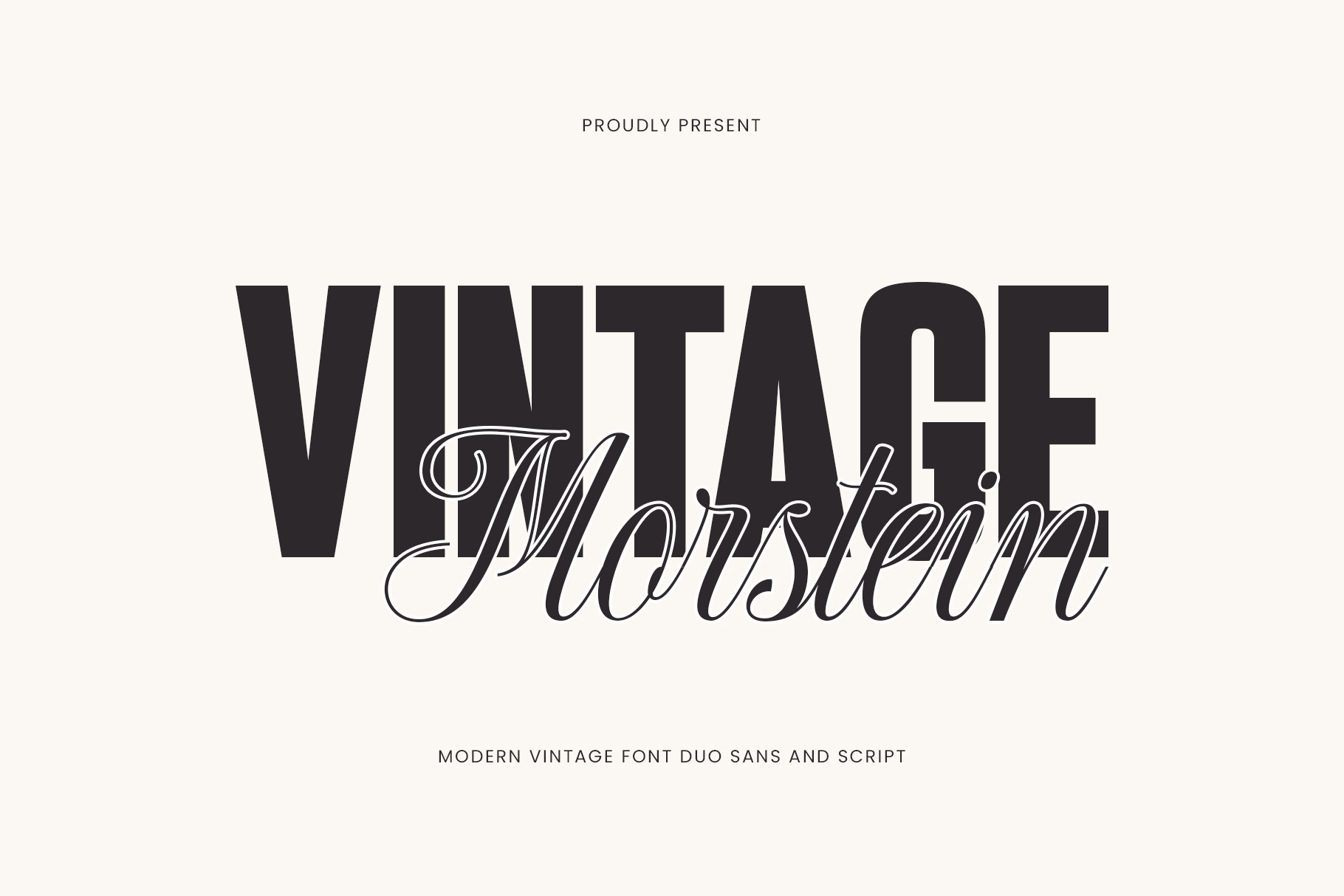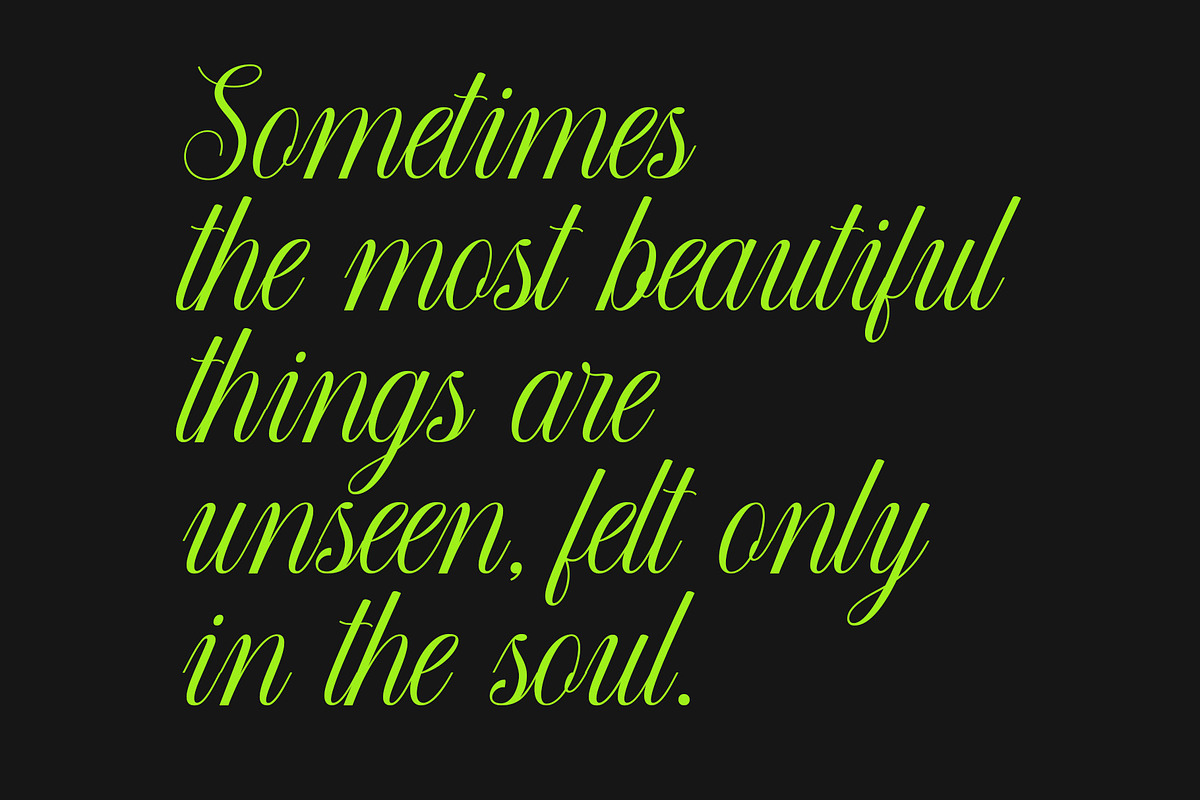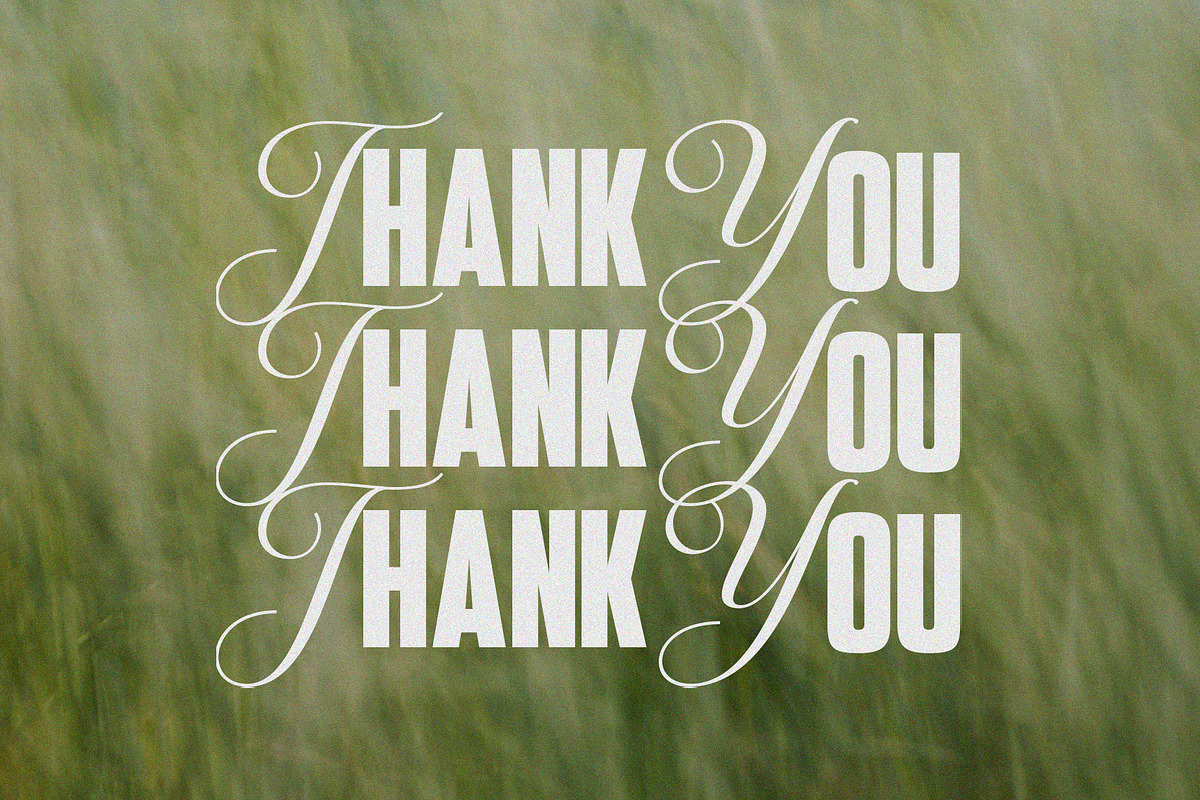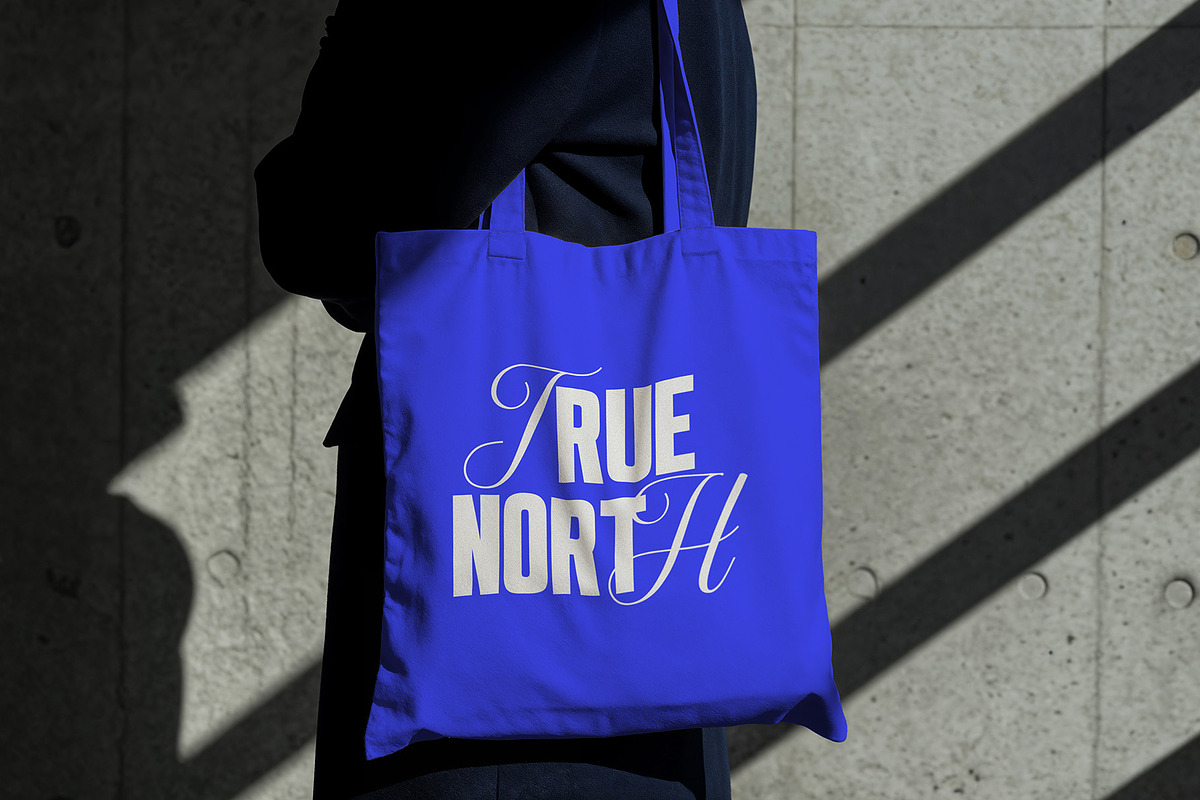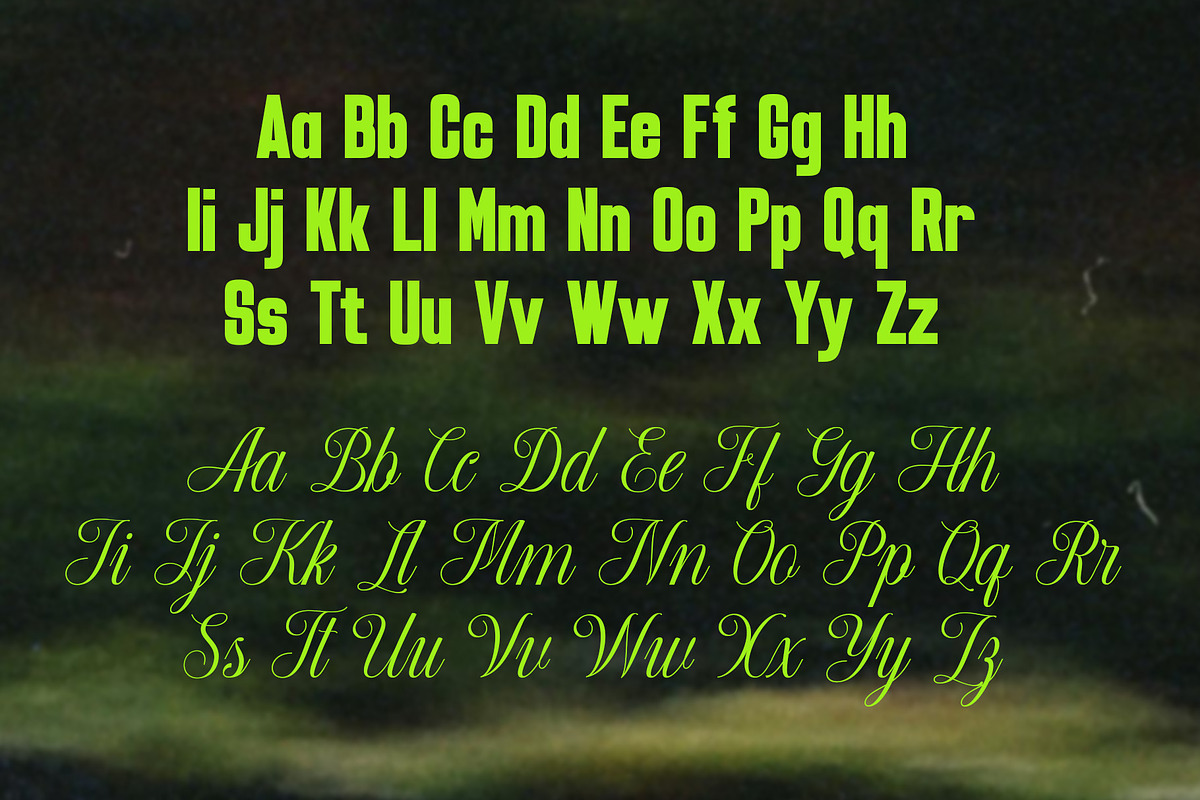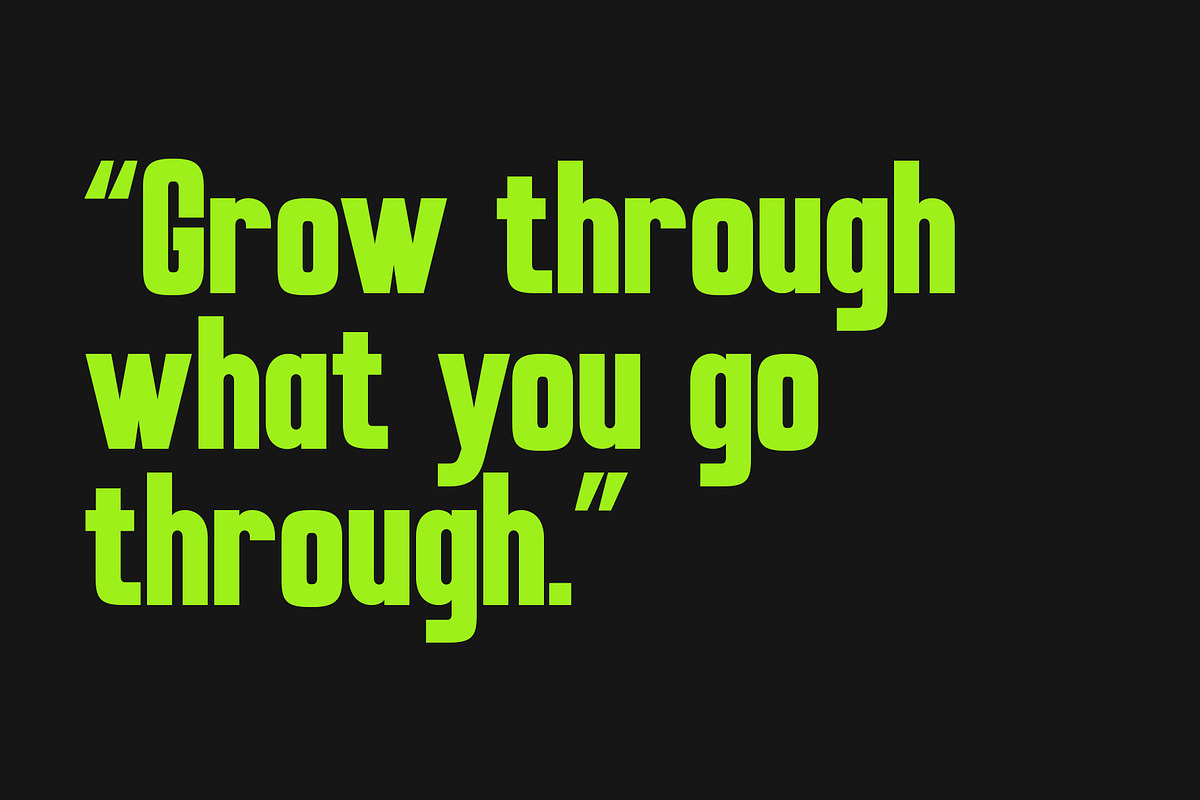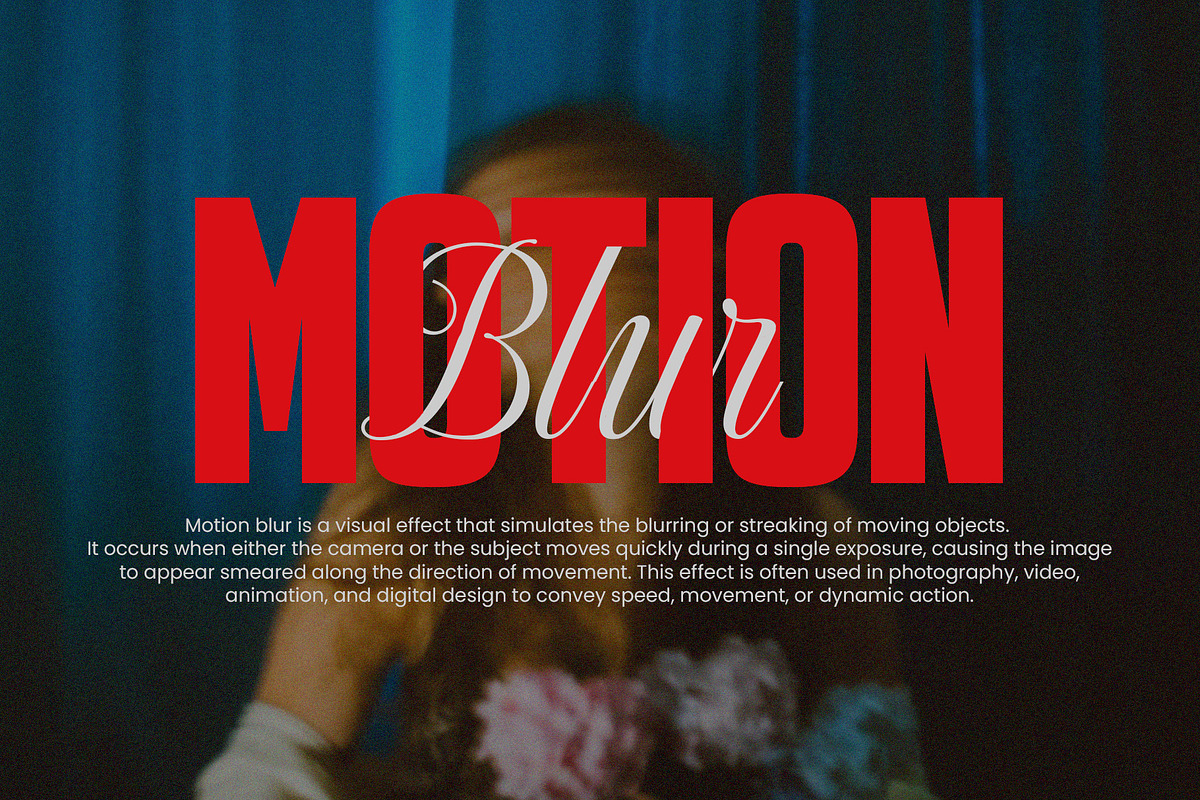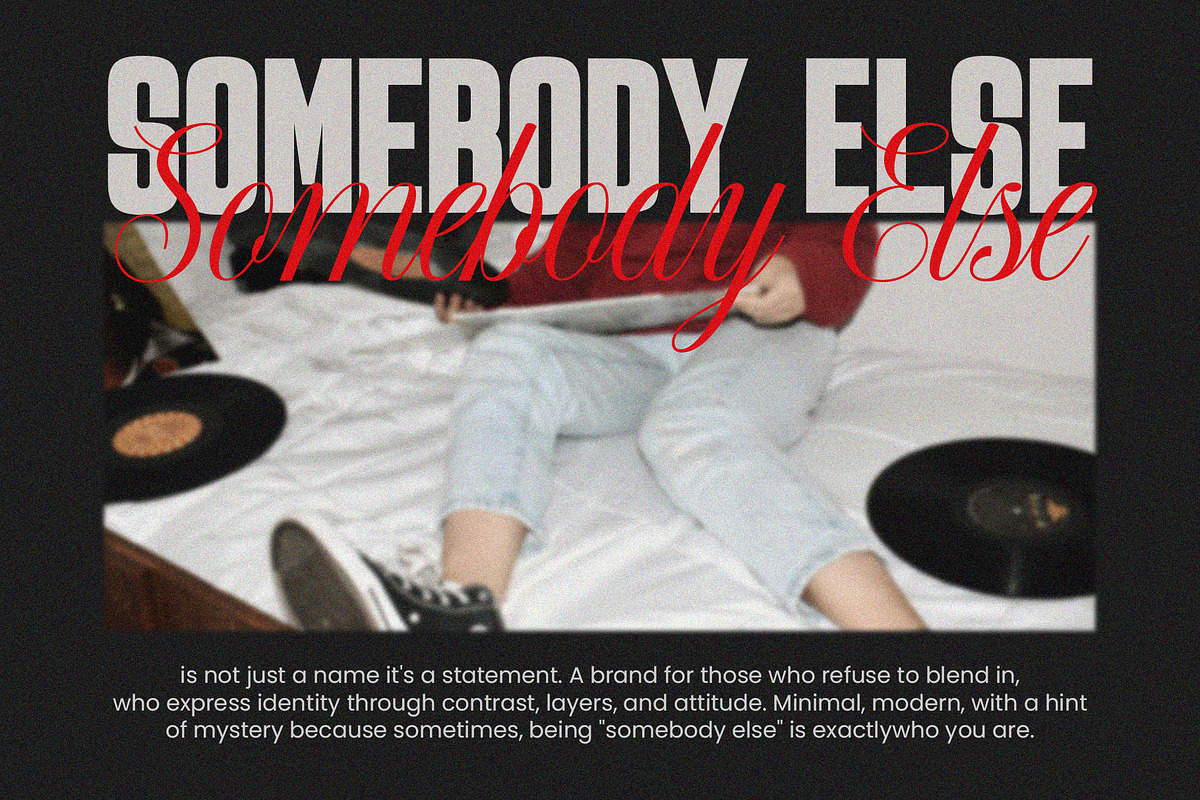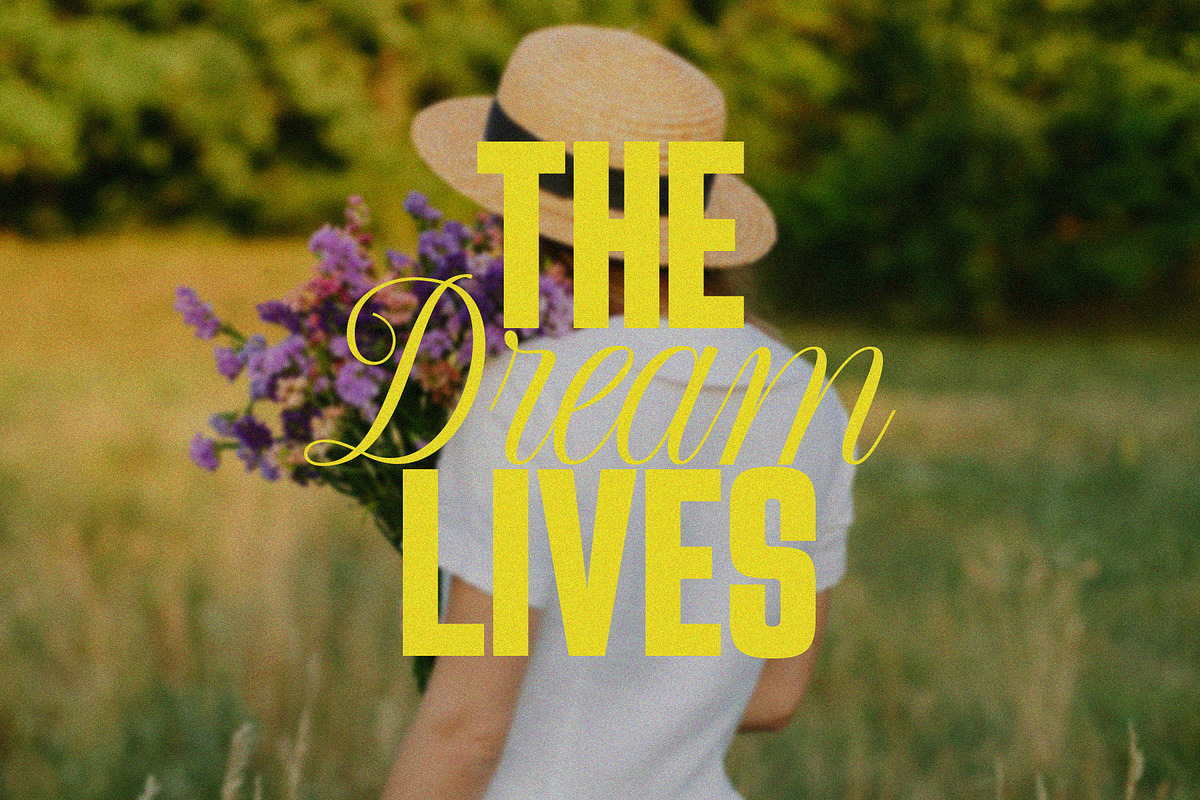
Morstein Vintage | Modern Font Duo
Morstein Vintage – a perfectly balanced font duo that blends bold retro charm with elegant script sophistication. Crafted for designers who love the timeless character of vintage typography with a modern twist.
This font duo features:
Bold Sans Serif Font – strong, structured, and full of personality, ideal for logos, headlines, posters, and branding projects.
Handwritten Script Font – smooth, stylish, and effortlessly flowing, perfect for taglines, signatures, or adding a personal touch.
Morstein Vintage is a versatile pair designed to work harmoniously or stand strong on their own. Whether you're crafting nostalgic brand identities, retro packaging, editorial designs, or wedding stationery, this duo brings that classic-meets-contemporary aesthetic with ease.
Embrace the beauty of modern vintage. Let Morstein Vintage elevate your next design project.